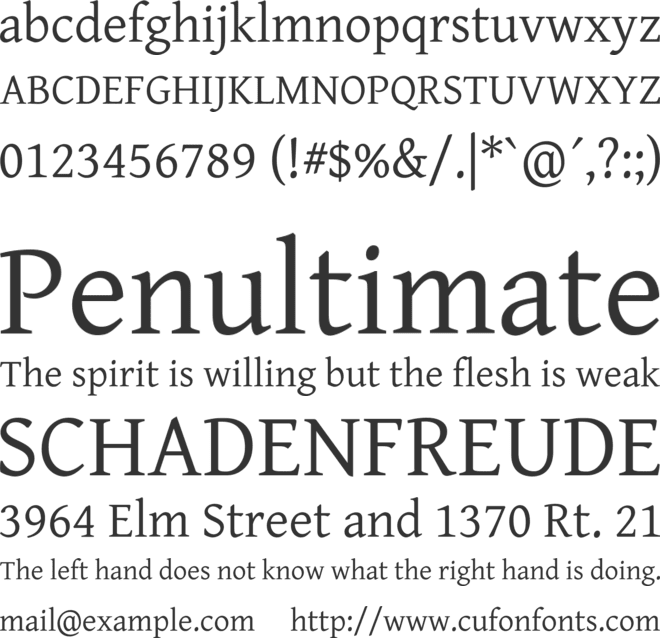
J. Victor Gaultney, Annie Olsen, Iska Routamaa
Gentium is a typeface family designed to enable the diverse ethnic groups around the world who use the Latin, Cyrillic and Greek scripts to produce readable, high-quality publications. It supports a wide range of Latin- and Cyrillic-based alphabets.
The design is intended to be highly readable, reasonably compact, and visually attractive. The additional ‘extended’ Latin letters are designed to naturally harmonize with the traditional 26 ones. Diacritics are treated with careful thought and attention to their use. Gentium also supports both polytonic and monotonic Greek. Gentium Plus now includes more extended Latin glyphs (Unicode 5.1), archaic Greek symbols, and full extended Cyrillic script support.